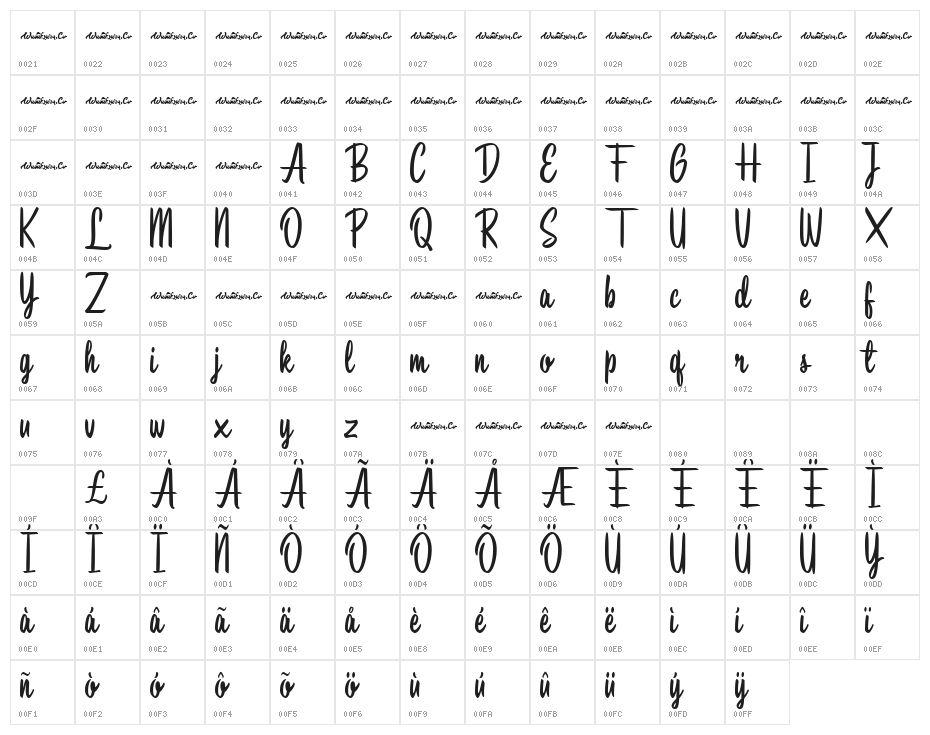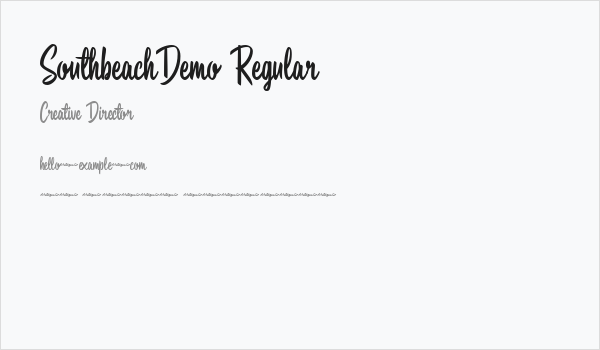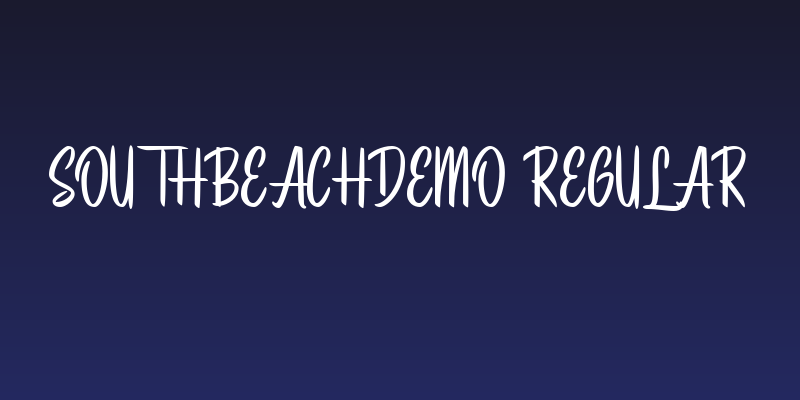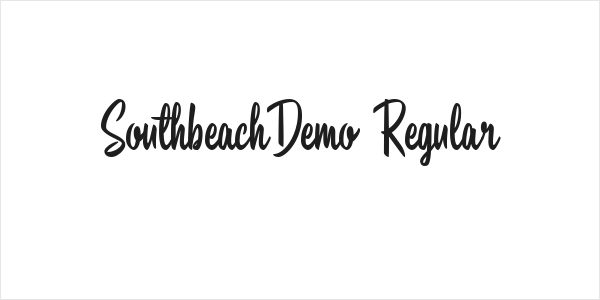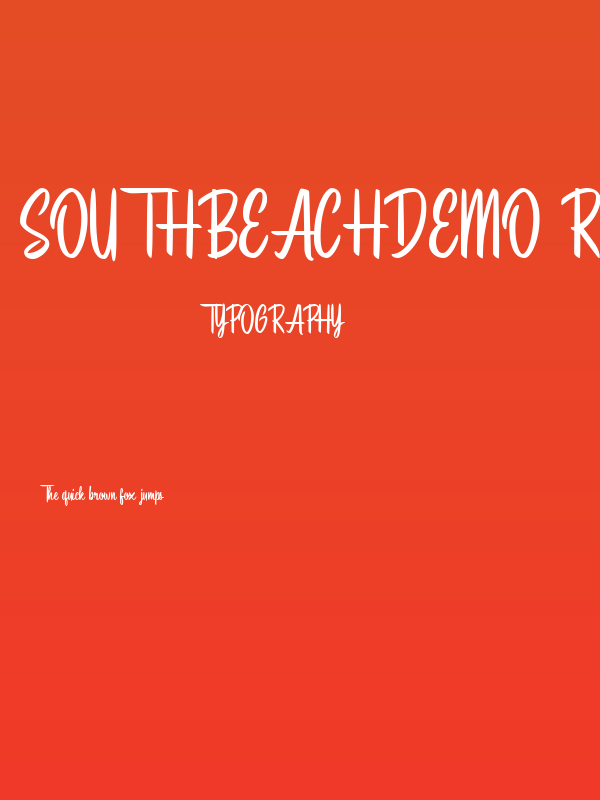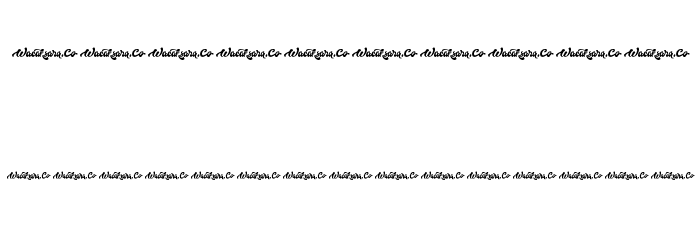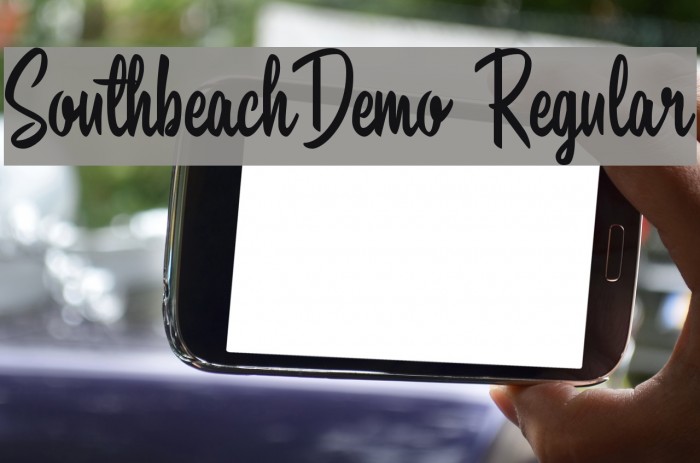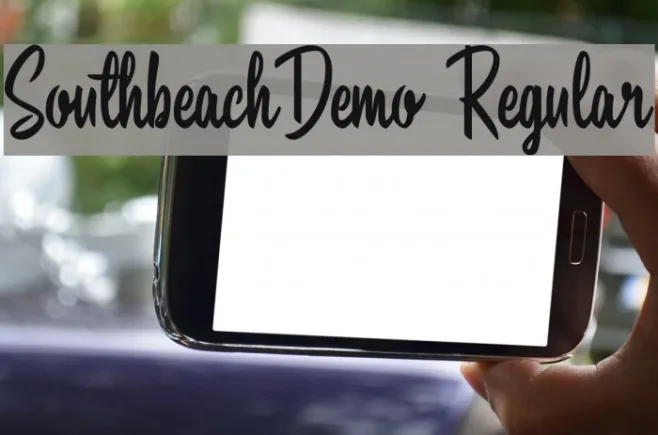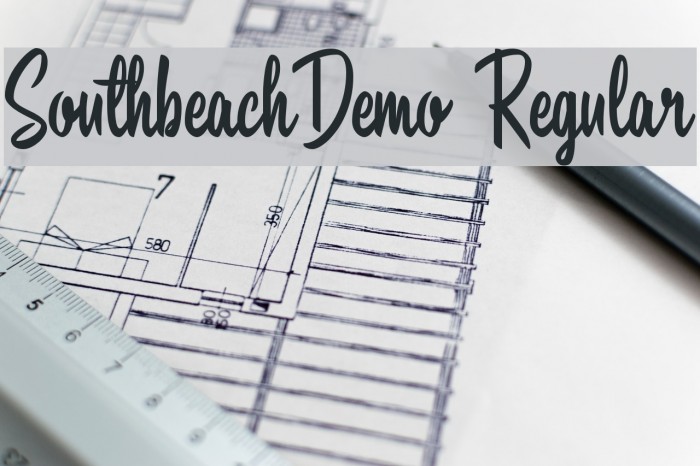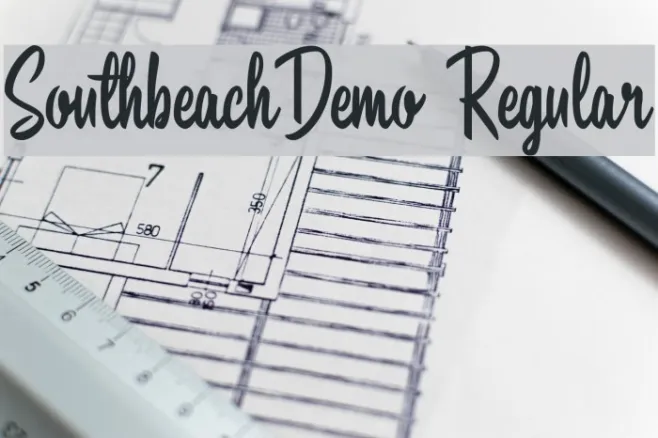
SouthbeachDemo Regular Font
SouthbeachDemo Regular Description
This font features a playful and energetic script style, characterized by its flowing, cursive letters that convey a sense of movement and fluidity. The uppercase letters are tall and slightly narrow, with a consistent stroke width that adds to the font's legibility. The lowercase letters maintain the same lively style, with loops and curves that enhance its whimsical appearance. The font's overall design is casual yet elegant, making it suitable for a variety of creative applications. Its unique charm lies in the balance between the bold strokes and the airy spacing, which gives each letter room to breathe while maintaining a cohesive look.
| Proposed Projects | Ideal for greeting cards, invitations, branding, and social media graphics. |